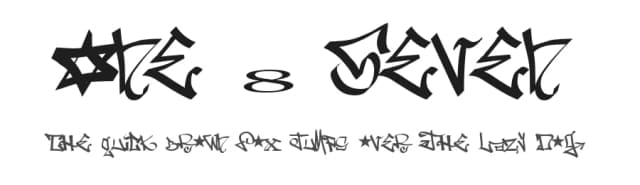
About VTKS Mural Font
VTKS Mural is a script & handwritten font designed by Douglas Vitkauskas. It includes 653 glyphs, a regular weight, TTF (TrueType) format, and 292 languages. VTKS Mural is free to download; check the license details on this page before commercial use. Script & handwritten fonts like VTKS Mural work best for wedding invitations, greeting cards, signatures, and elegant branding.
VTKS Mural Font is a script font that shines as a display or heading face. Pair it with a clean sans-serif or serif font for body text β the contrast creates a clear hierarchy while the two styles stay balanced and easy to read.
VTKS Mural Font
VTKS Mural Font is a script handwritten typeface by Douglas Vitkauskas, ideal for logos, invitations, branding, and creative projects.